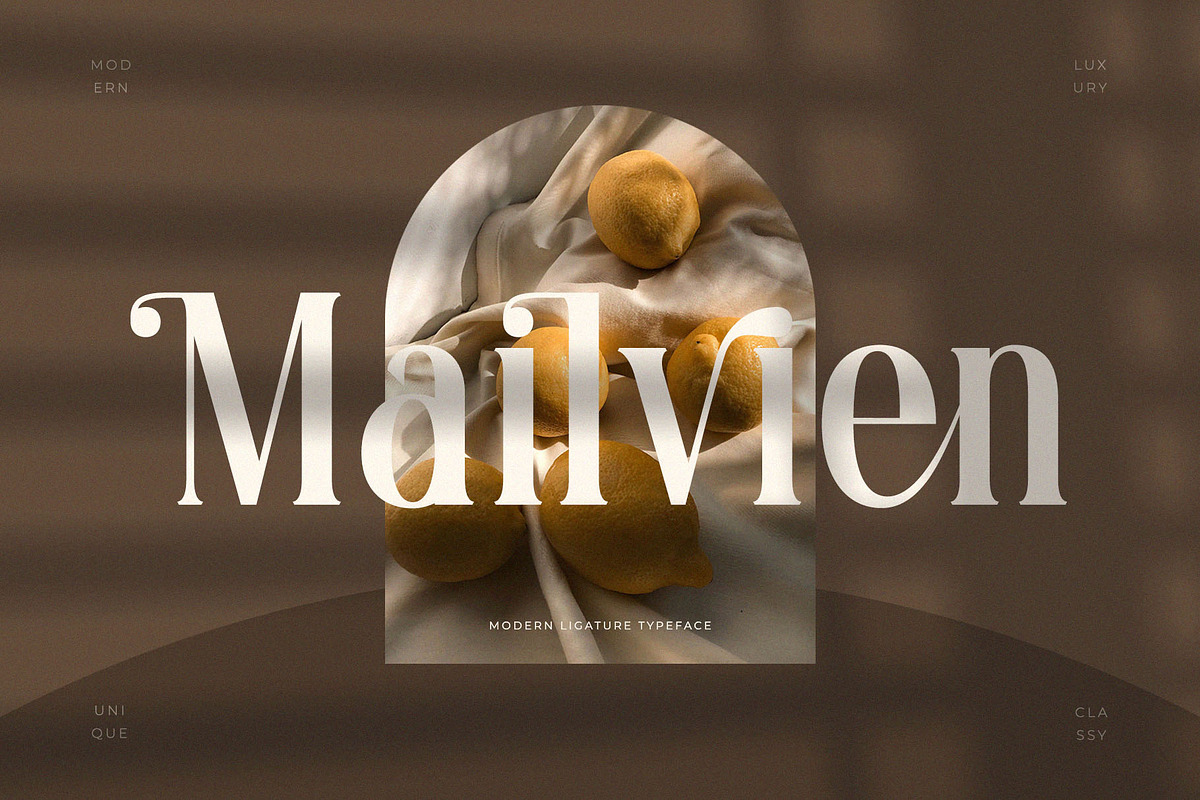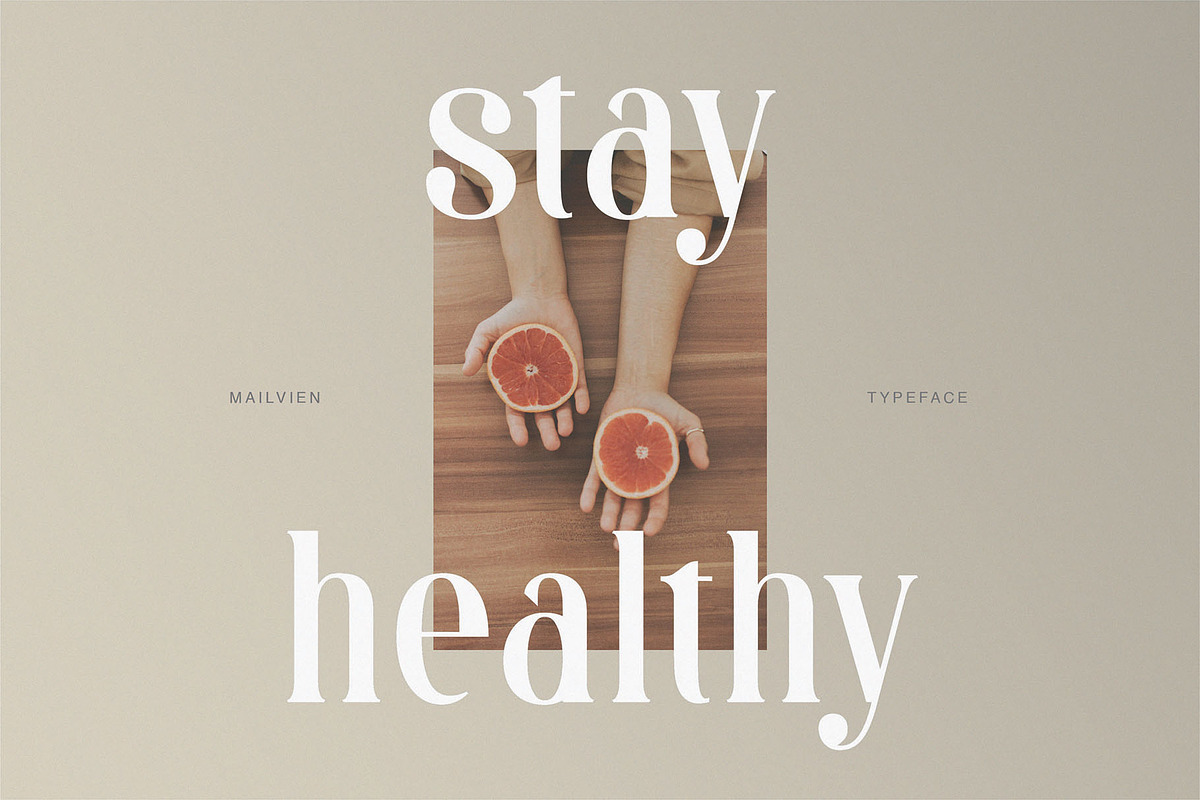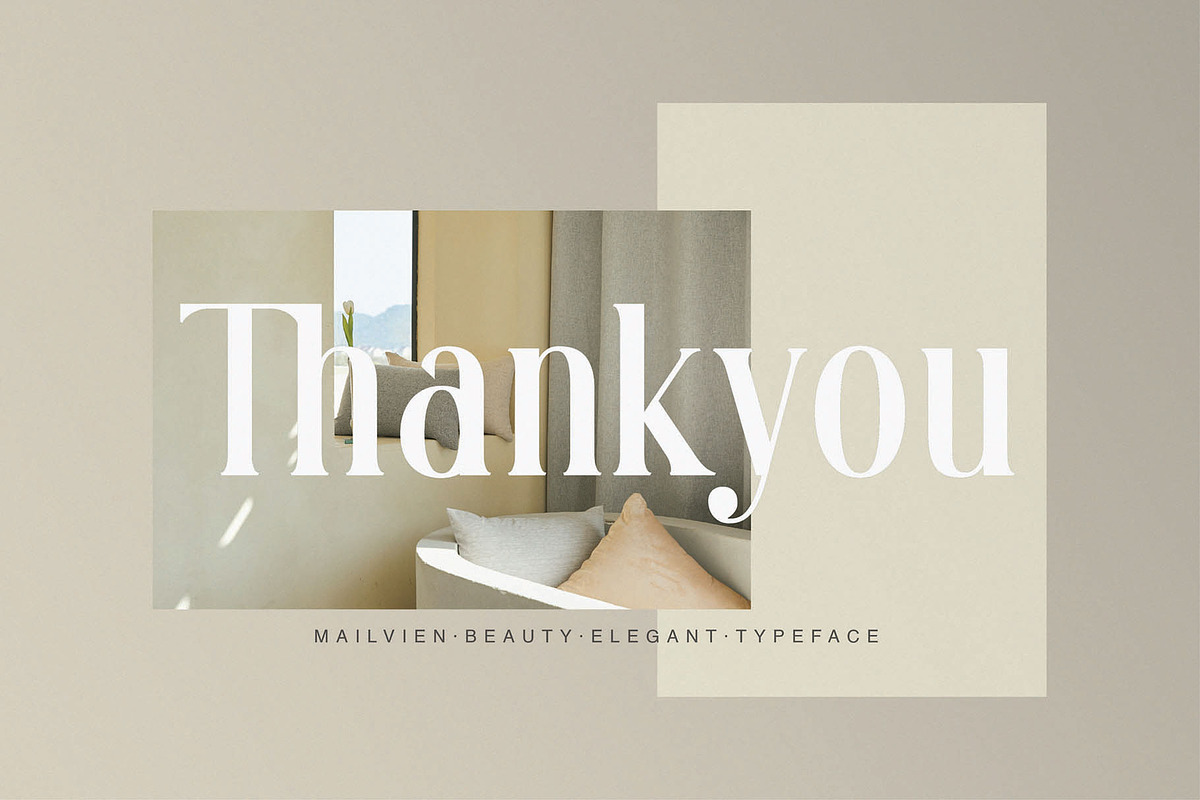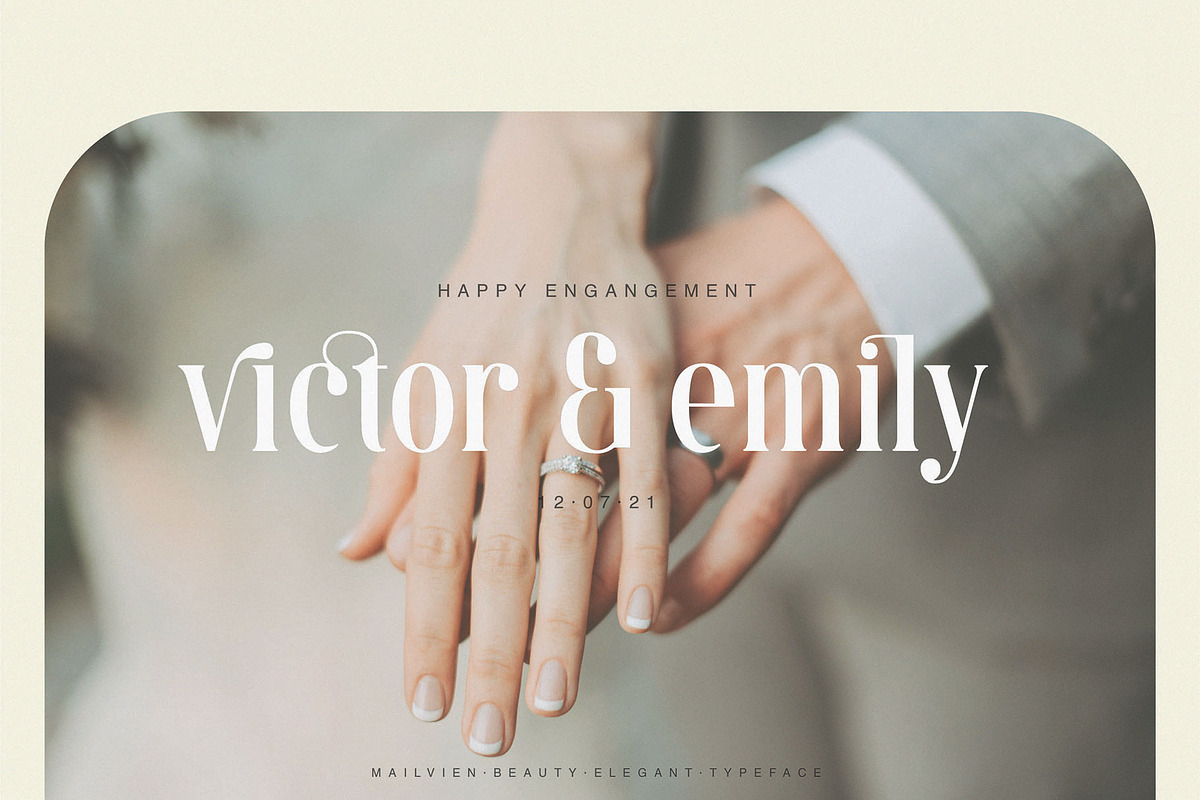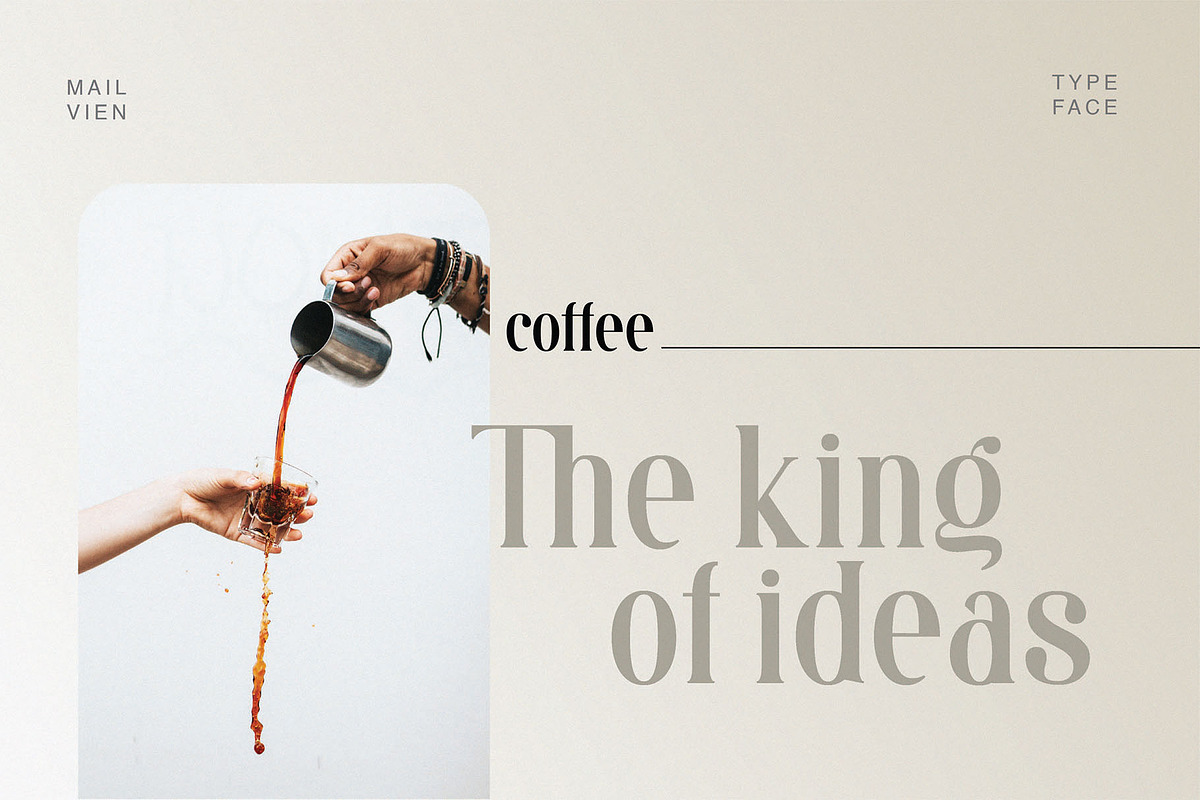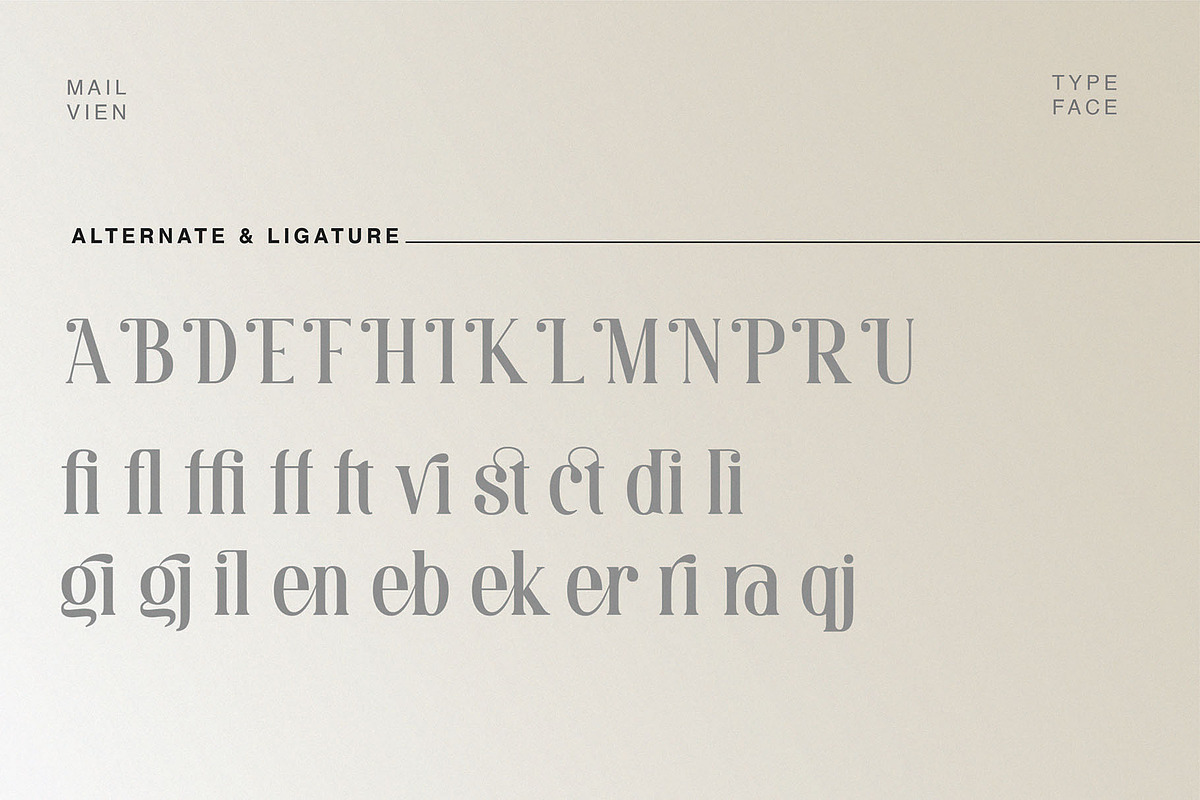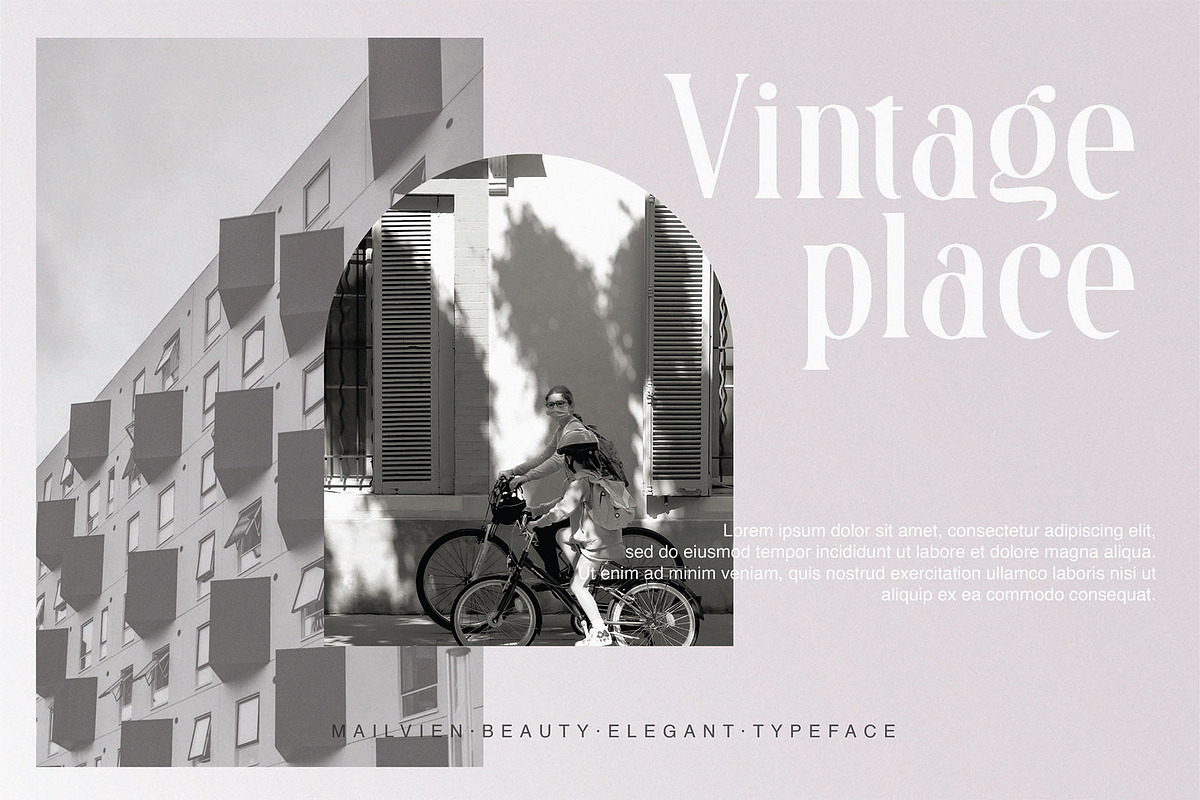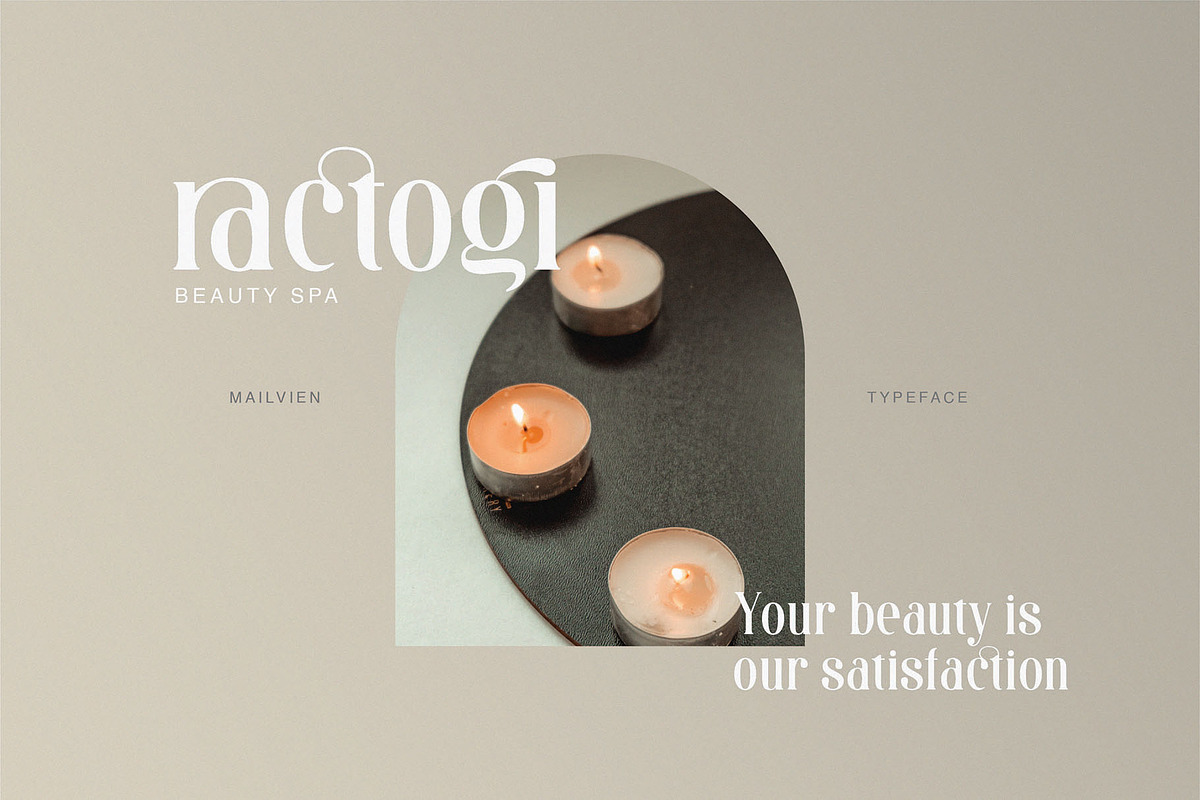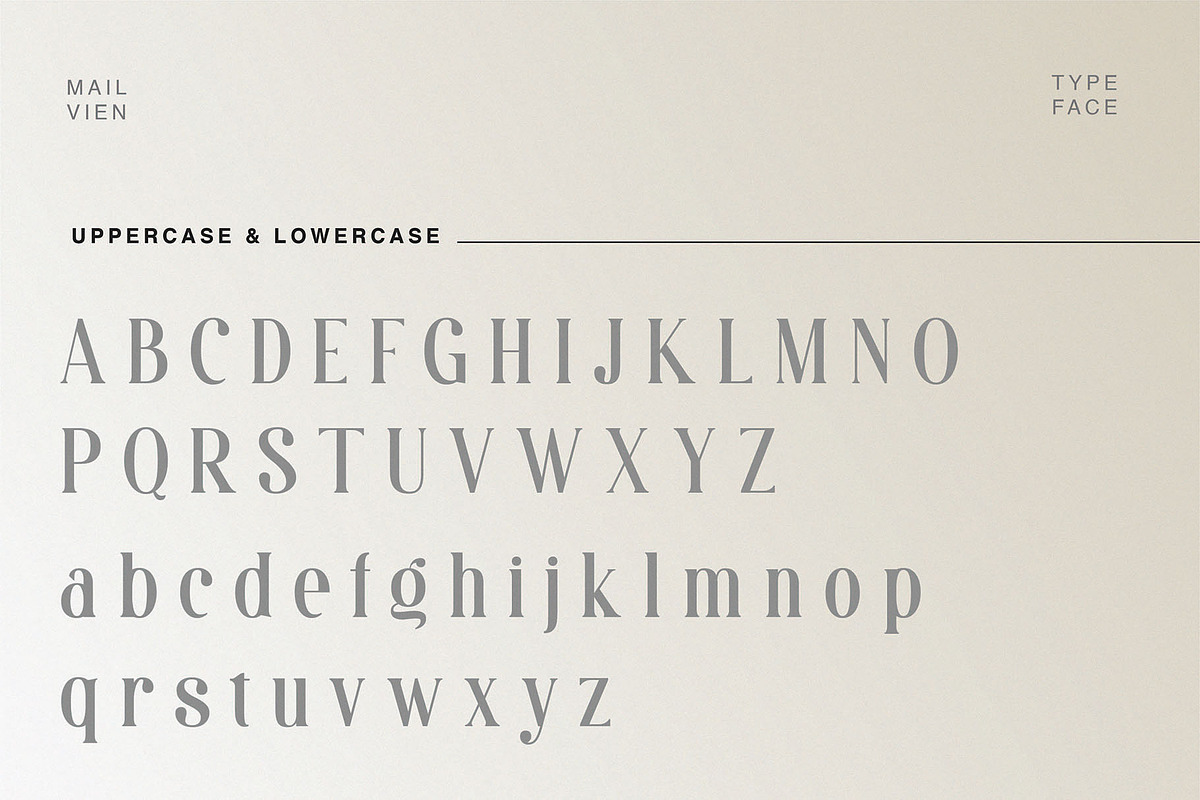
Mailvien - Modern Ligature Typeface
Introducing our new "Mailvien", Modern ligature typeface with Unique, Classy and Stylish. Is perfect for branding, logos, invitation, master heads, and more.
Mailvien Features :
- Multilanguage